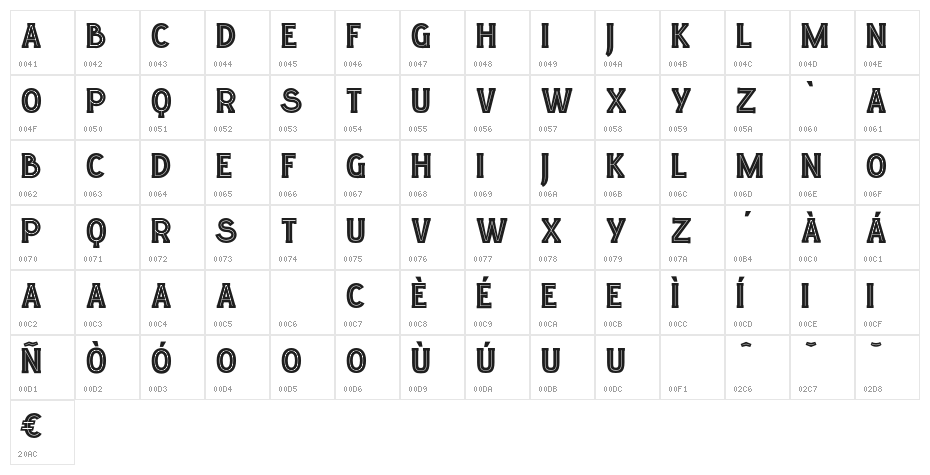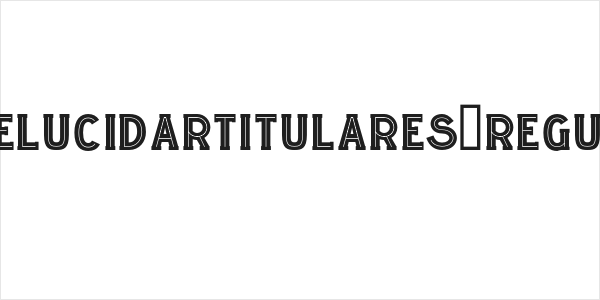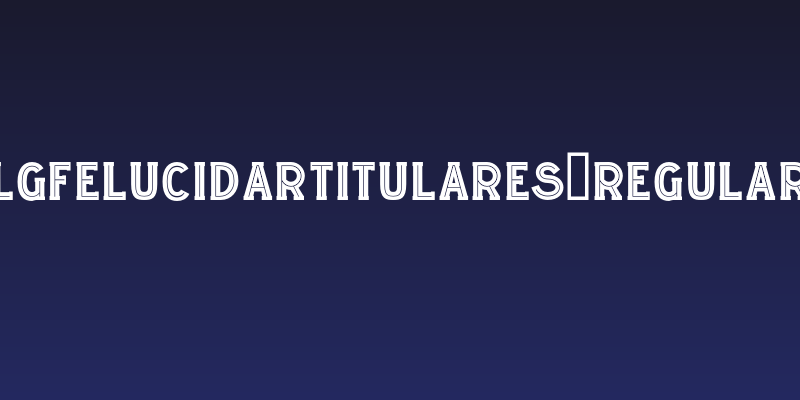
LGFELUCIDARTITULARES-Regular Font
LGFELUCIDARTITULARES-Regular Description
This font features bold, uppercase letters with a distinct, decorative outline that gives it a strong and impactful appearance. The characters are designed with a modern flair, incorporating clean lines and a geometric structure. The font's style is reminiscent of classic display typefaces, yet it maintains a contemporary edge, making it suitable for a variety of design applications. The uniformity in the stroke width and the consistent spacing between the characters contribute to its readability and visual appeal. This font is ideal for creating eye-catching headlines and titles, where emphasis and clarity are paramount.
| Proposed Projects | Ideal for headlines, posters, branding, and any design requiring a strong visual impact. |